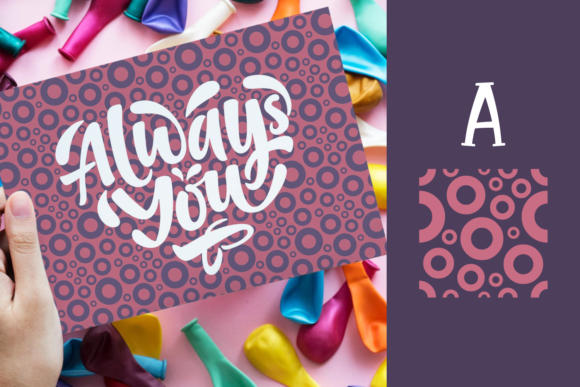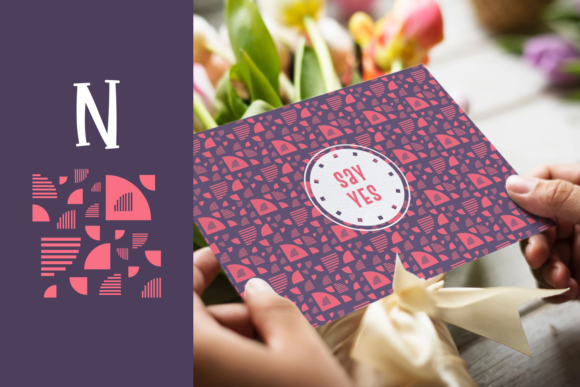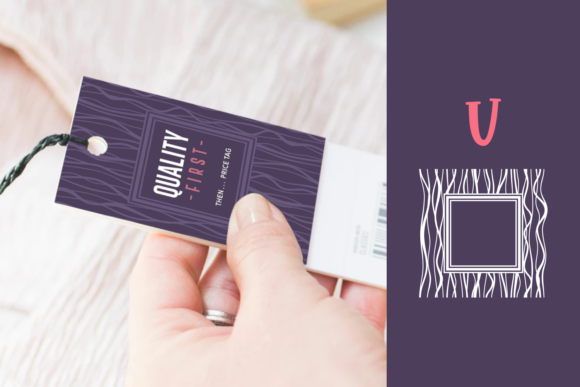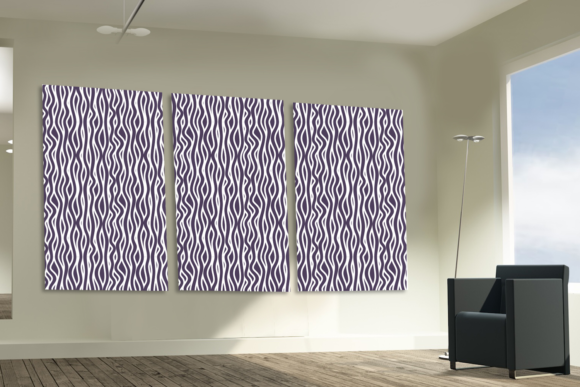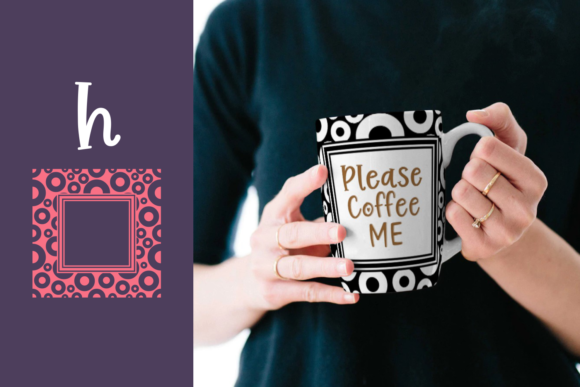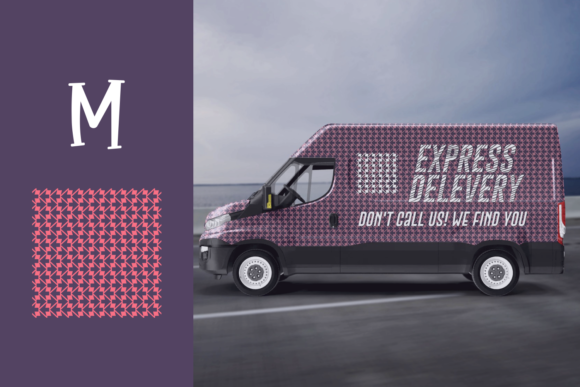
Introduction to Seamless Pattern & Frames Font
As designers, we’ve all been there – staring at a blank page, struggling to bring our creative vision to life. But what if you had the perfect tool to elevate your design and make it truly stand out? Look no further than the Seamless Pattern & Frames Font, a game-changing dingbat font that’s about to revolutionize your creative projects.
This incredible font offers a wide range of high-quality patterns and frames that can be used to add a unique touch to any design. From geometric shapes to abstract patterns, the Seamless Pattern & Frames Font has everything you need to take your creative project to the next level. And the best part? It’s completely free to download, making it an invaluable resource for designers of all levels.
Whether you’re working on a graphic design project, creating a brochure, or designing a website, the Seamless Pattern & Frames Font is the perfect design resource to have in your arsenal. With its transparent background and high-quality design, you can rest assured that your project will look professional and polished. So why wait? Download the Seamless Pattern & Frames Font today and start creating something amazing!
Key Features of Seamless Pattern & Frames Font
- Unique Seamless Pattern & Frames Font with a transparent background for versatility
- High-resolution design, suitable for print and digital applications
- Perfect for designers, artists, and crafters looking for a high-quality design resource
- Easy to use and edit, making it an ideal design resource for various creative projects
Honest Review: Seamless Pattern & Frames Font
I recently came across the Seamless Pattern & Frames Font and was excited to give it a try. As a designer, I’m always on the lookout for high-quality design resources that can elevate my creative projects.
- High-quality design: The Seamless Pattern & Frames Font is truly a high-quality design resource, with crisp and clear lines that make it perfect for printing.
- Transparent background: I appreciate that the font has a transparent background, making it easy to use in various design scenarios.
- Limited customization options: While the font itself is great, I found that there are limited customization options available, which might be a drawback for some designers.
- Not suitable for all projects: The Seamless Pattern & Frames Font is better suited for creative projects that require a high-end look, but might not be the best choice for more straightforward designs.
Overall, I’d say that the Seamless Pattern & Frames Font is a solid addition to any designer’s toolkit. While it may have some limitations, its high-quality design and transparent background make it a great resource for creative projects. Just be aware of its limitations before using it in your next design project.
For presentations or documents, you can use the Seamless Pattern & Frames Font to add a creative touch. Simply insert the font into your design and adjust its size and color to fit your needs. With its high-quality design and transparent background, you can create a visually appealing presentation or document.
To get the most out of the Seamless Pattern & Frames Font, experiment with different colors, sizes, and arrangements to create unique designs. You can also use it in combination with other design elements to add depth and interest to your project.
The Seamless Pattern & Frames Font is ideal for use in creative projects such as posters, flyers, business cards, and social media graphics. Its versatility and high-quality design make it a valuable design resource for designers and non-designers alike.